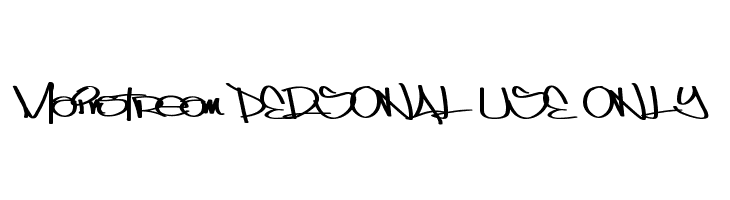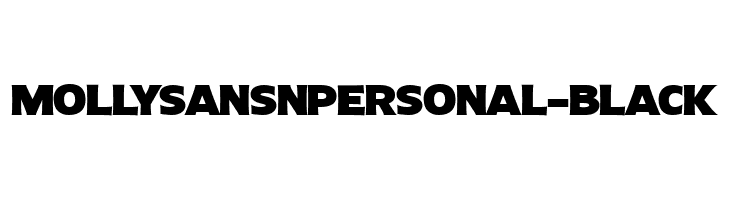
( Fonts by Måns Grebäck )
A bold, graffiti-inspired font with dynamic curves and sharp angles.
A playful and casual handwritten font with rounded, smooth letterforms.
( Fonts by Hoperative )
A playful, retro font with bold, rounded characters and whimsical curls.
A bold, segmented geometric font with a modern and playful style.
A bold, pixelated font with a retro digital aesthetic.
( Fonts by Letterena Studios )
A dynamic and fluid script font with elegant, flowing letterforms.
A bold, jagged, and italicized font with a dynamic, comic book style.
A modern, slightly italicized font with smooth curves and consistent stroke width.